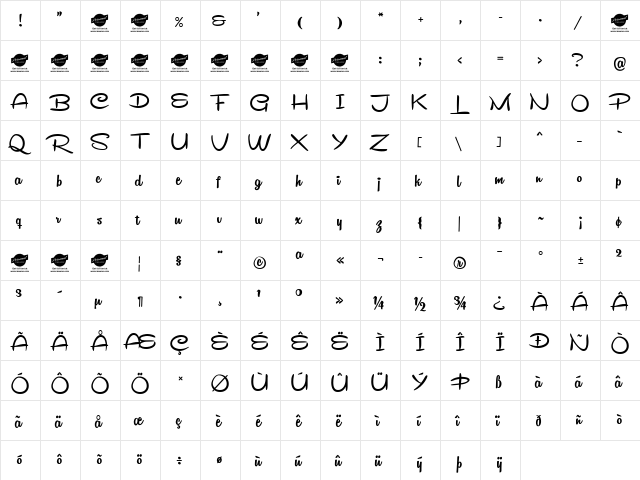
Remachine Script Personal Use Regular
Design Context for Remachine Script Personal Use Typeface
Remachine Script Personal Use flows with the natural rhythm of handwritten lettering, making it ideal for designs that call for warmth and personal expression.
Font Pairing: Combine Remachine Script Personal Use with a simple geometric sans for maximum contrast — the tension between flowing curves and clean structure is a classic typographic pairing.
Pro Tip: Pair Remachine Script Personal Use with a clean sans-serif for supporting text. The contrast between fluid script and geometric structure creates an elegant typographic hierarchy.